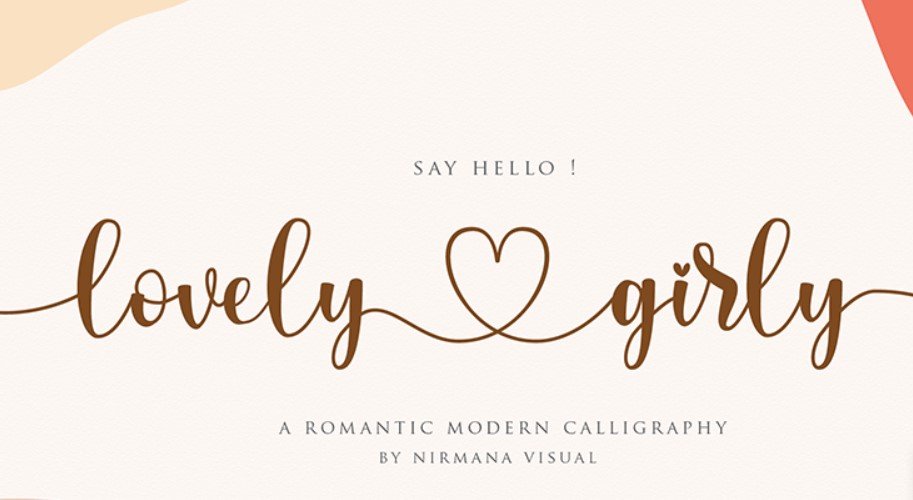
Lovely Girly Calligraphy Font Free Download
We are presenting the wonderful Lovely Girly Calligraphy Font, an excellent open type font with a great casual and pretty texture. This typeface is perfect for designing titles, posters, banners, letterheads, labels, and many other amazing projects you can easily create with this font.
This is the packed and beautiful swashes curly typeface that has x-height that is perfectly workable with its tall ascenders which creates typographic contents easily.
Now, the time is came to view the sample the of great typeface that is similar to heroes assemble. Below, we shared an image that contains the glyphs and characters of this amazing font which creates best designs in Adobe Photoshop and Adobe Illustrator.
This is great curly and amazing calligraphic typeface which is the perfect texture for designing the lots of amazing projects.
The font contains great handwritten texture that looks like ondise font which has a popular texture so that can also be used in pairing also.
Style Calligraphy
Designer Nirmana Visual
What Type of Font Is Lovely Girly Calligraphy?
The font is the famous and amazing scripted typeface which was product of the combination efforts by Nirmana Visual.
What’s the Closest Font to Lovely Girly Calligraphy?
The Nurani Script Font is very close to the font.